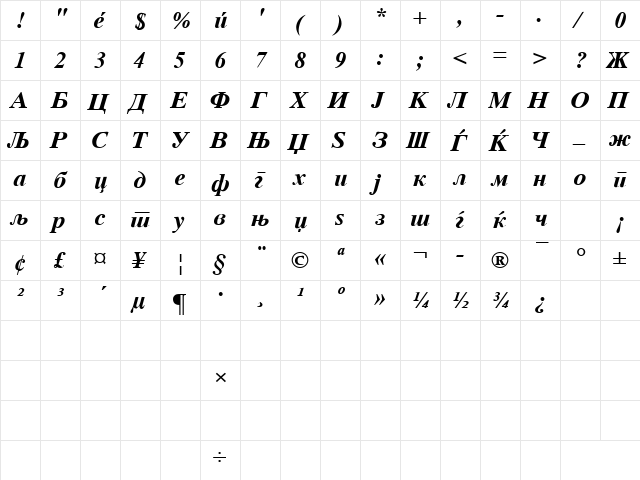
Macedonian Tms Bold Italic
Design Context for Macedonian Tms Typeface
Macedonian Tms takes a measured approach to typography — its balanced proportions and neutral character make it a reliable workhorse for both digital and print work. Its italic angle brings a sense of urgency and motion to the letterforms. Its bold stroke weight gives it real presence on the page.
Pro Tip: Use Macedonian Tms for emphasis, pull quotes, and subheadings where its slanted energy can add rhythm to the layout.